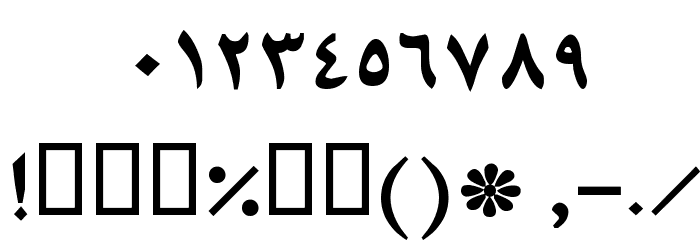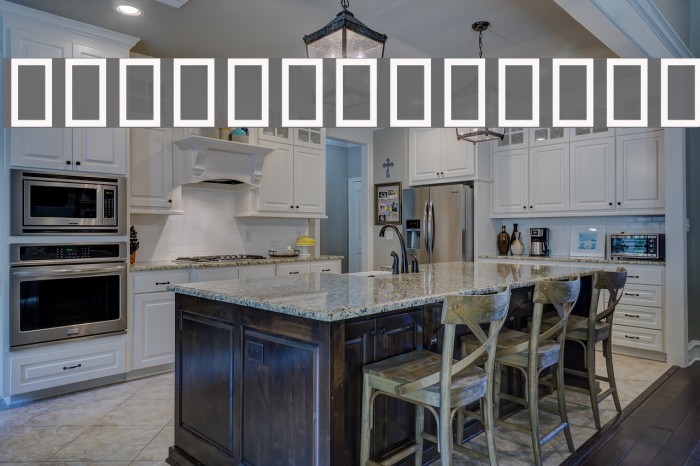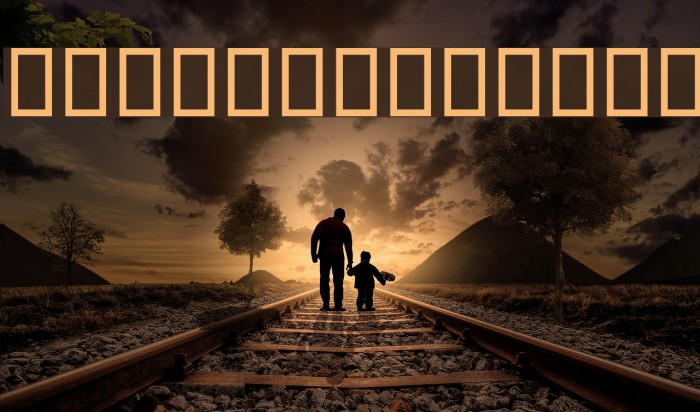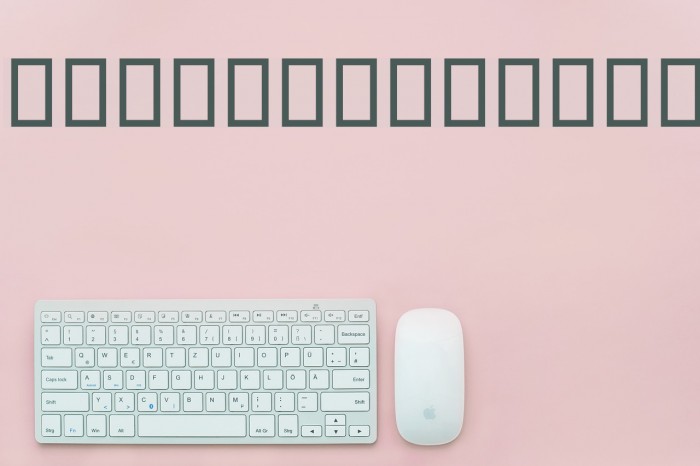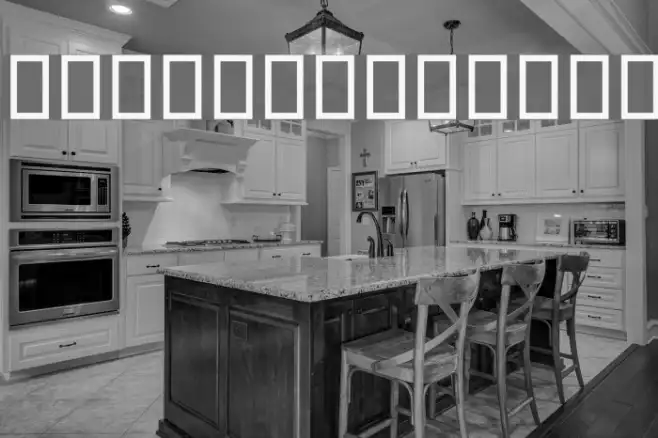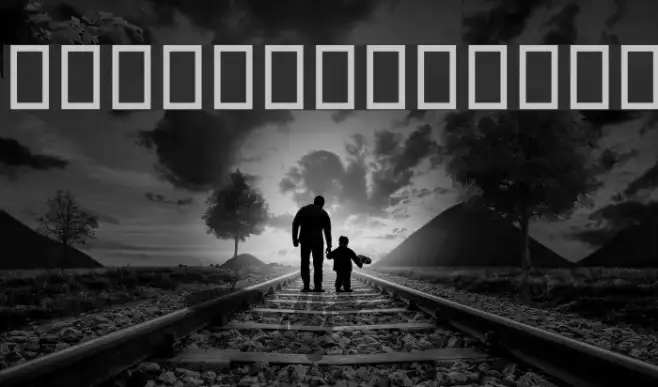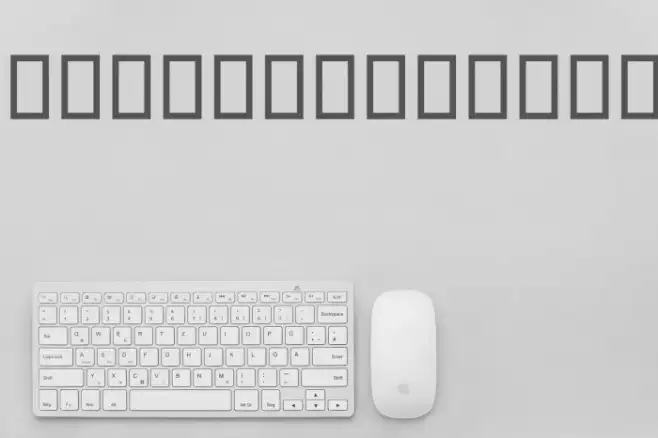
Mashhad Bold Font
This font features a bold and striking design, characterized by its thick strokes and strong presence. The characters are well-defined, with a consistent weight throughout, making it ideal for attention-grabbing headlines and impactful statements. The numerals and special characters maintain the bold aesthetic, ensuring uniformity across all elements. The font's style is modern yet versatile, suitable for various design applications where a bold statement is desired.
A bold and striking font with thick strokes, ideal for impactful headlines.
- Proposed Projects: This font is perfect for branding projects, poster designs, and any application requiring a strong visual impact.